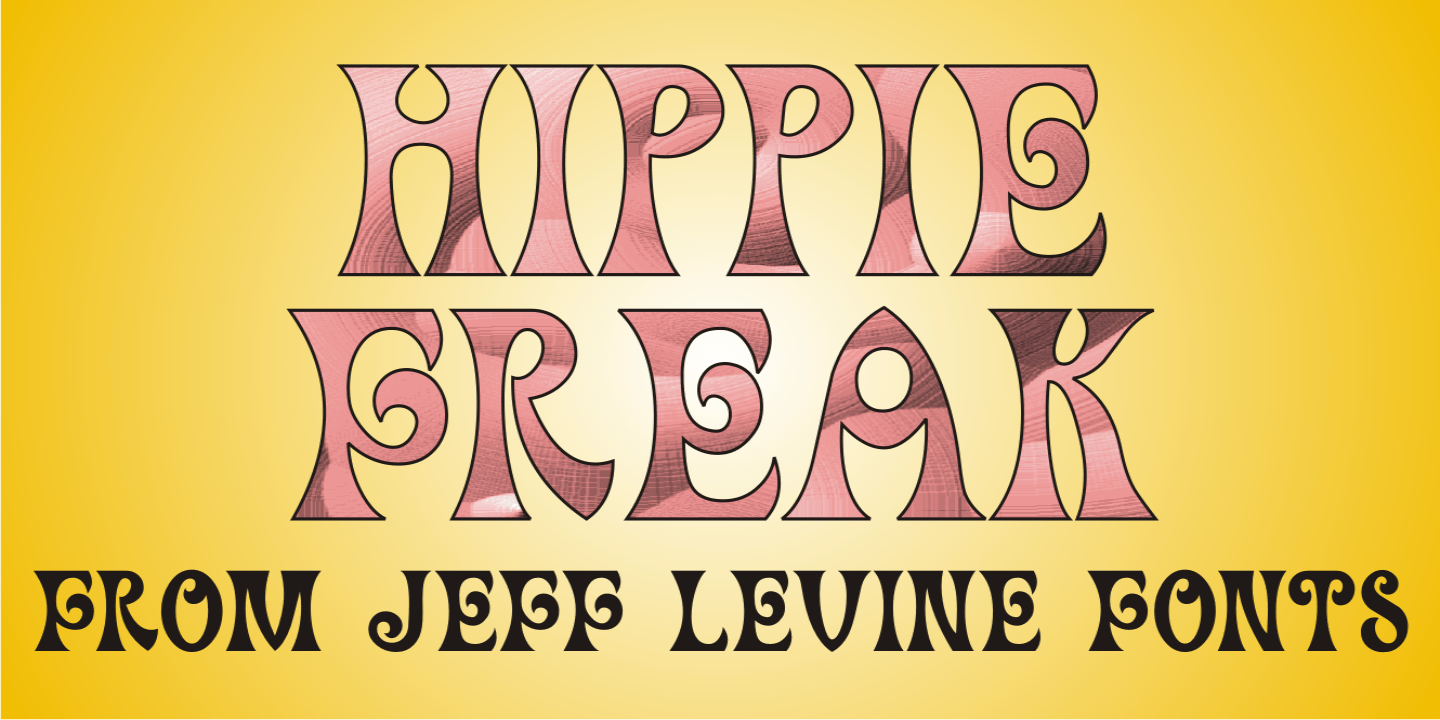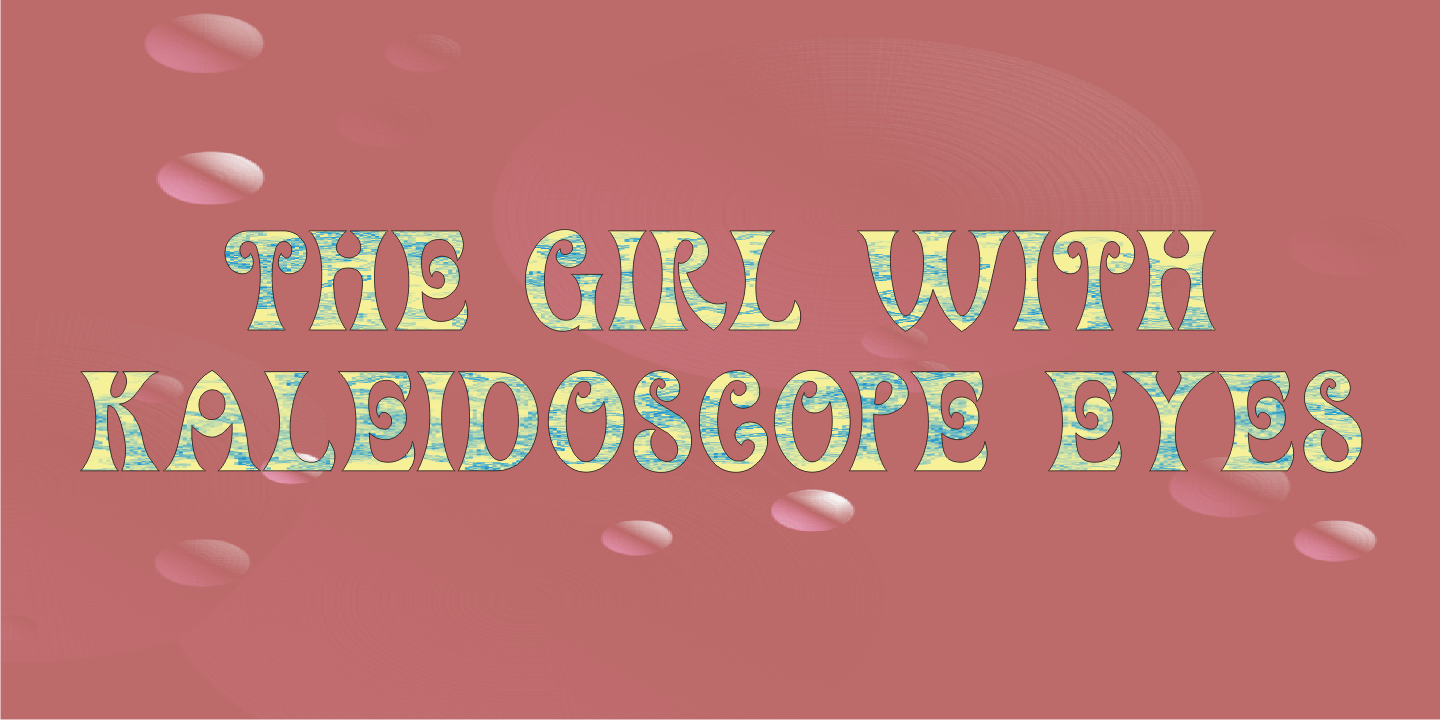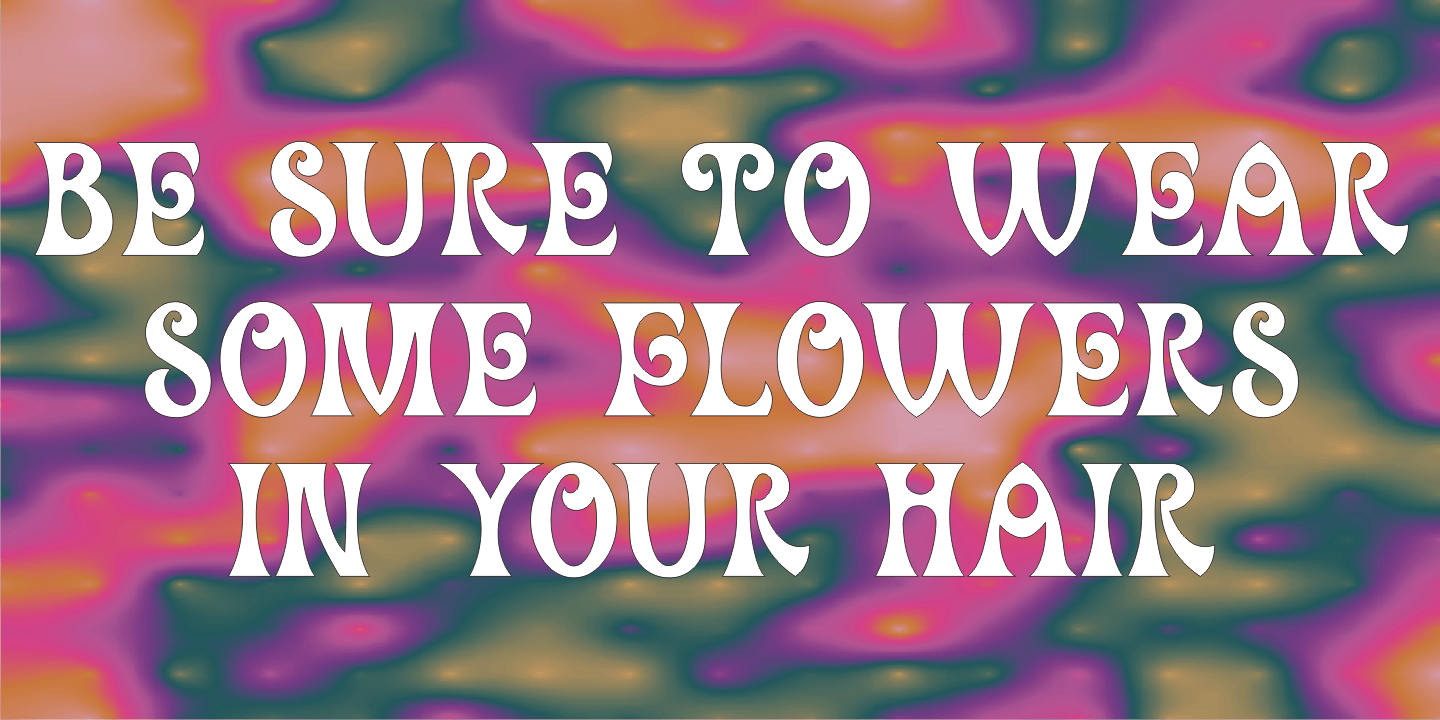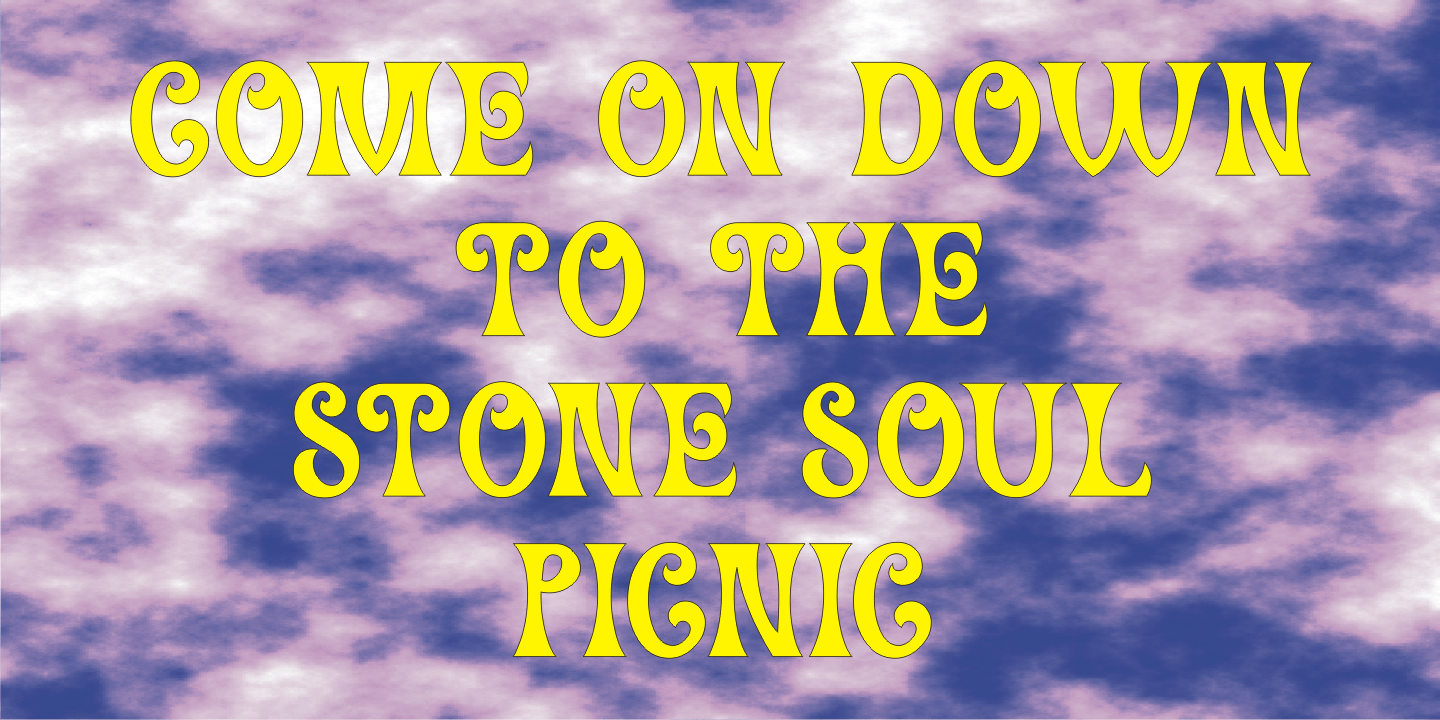
Hippie Freak
What does a 1932 movie about a love affair between a circus' trapeze artist and a sideshow 'little person' have to do with the 1960s counter-culture? They both share some commonalities.
The title card for Tod Browning's 'Freaks” inspired the lettering design for Hippie Freak JNL. It's in a retro style that was embraced by the youth movement that had its epicenter in the Haight-Ashbury district of San Francisco.
Circus performers with birth defect abnormalities were displayed in what was referred to as 'freak shows”; while young men with long hair and beards who sought peace, love and an end to the war in Vietnam were commonly referred to as 'hippie freaks'.
As the saying goes 'the more things change, the more they stay the same”.